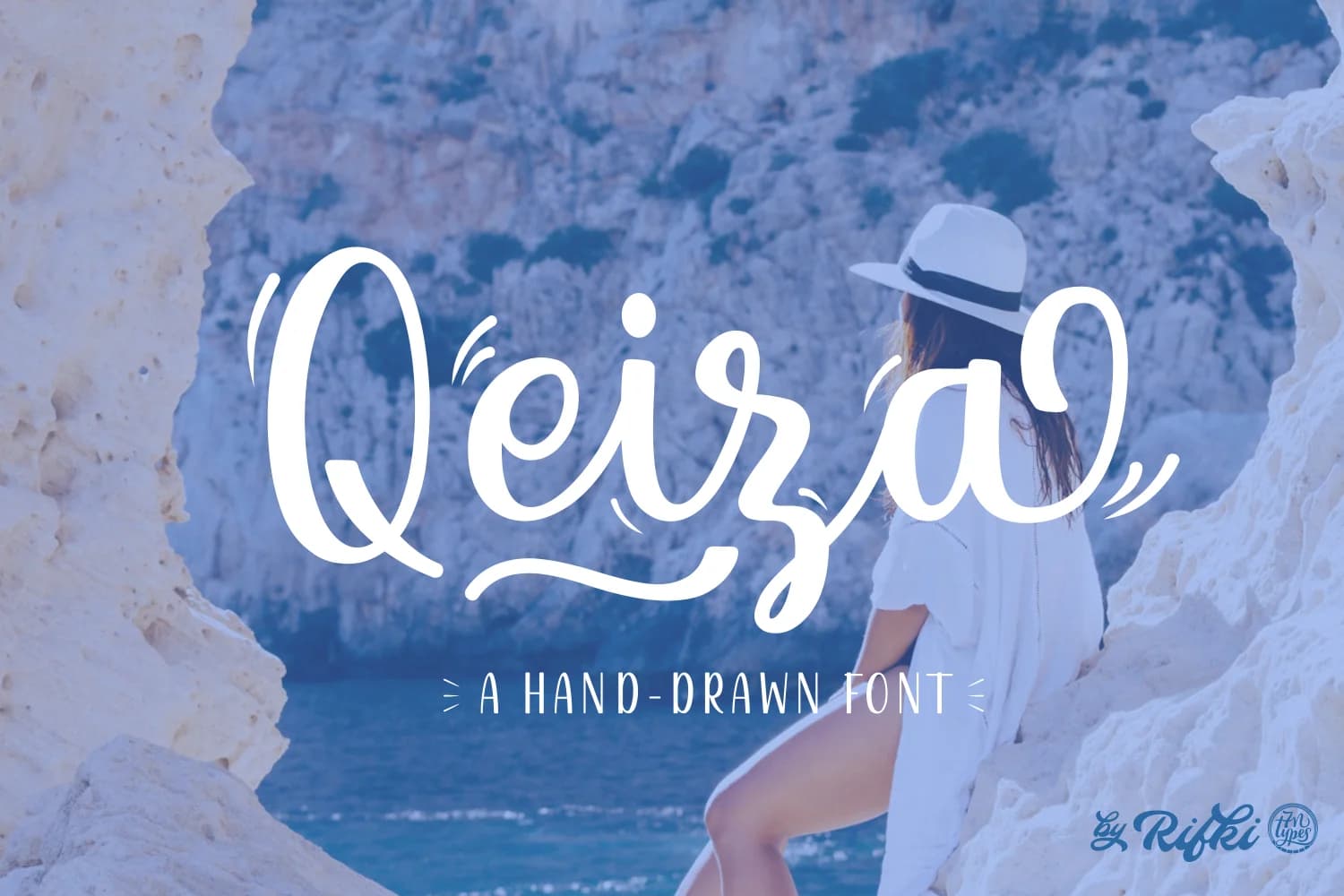
Qeiza by Rifki is a flowing handwritten script that authentically captures the organic, natural beauty of pen strokes on paper without feeling overly stylized or artificial. With its natural letterform variations and loose, gestural quality, this typeface brings genuine warmth and authenticity to creative projects that demand a personal, human touch. The script's fluid lines and organic character make it equally suited to both formal applications requiring elegance and casual, creative work that prioritizes personality and distinctive charm.
Wedding invitation suites benefit tremendously from Qeiza's elegant, highly readable curves and inherently romantic quality, while greeting card designs gain distinctive character from its relaxed, hand-lettered aesthetic. The font excels for product label designs destined for artisanal goods and small-batch businesses, where authentic, handmade branding matters most to conscious consumers. It performs beautifully across social media post captions, boutique product packaging design, and DIY craft projects where a handcrafted aesthetic genuinely resonates with audiences. Content creators, indie makers, and small business owners will appreciate how Qeiza adds a distinctly human element that builds authentic connection with viewers seeking non-corporate, personally crafted visual communication.
Qeiza Font is a script font that shines as a display or heading face. Pair it with a clean sans-serif or serif font for body text β the contrast creates a clear hierarchy while the two styles stay balanced and easy to read.